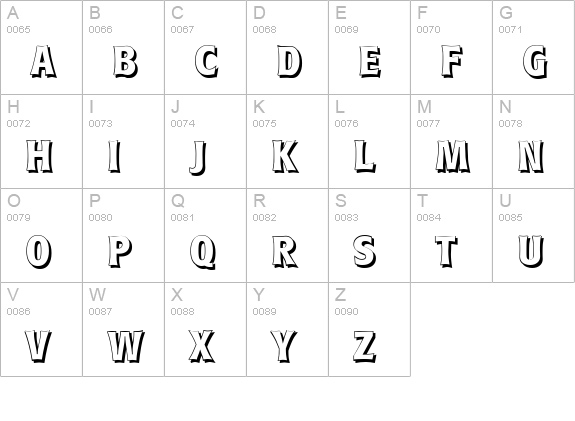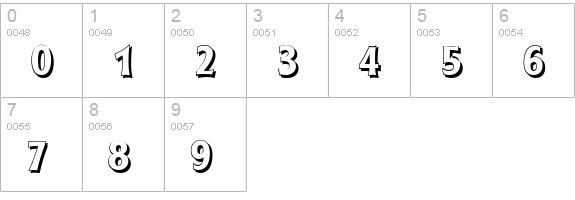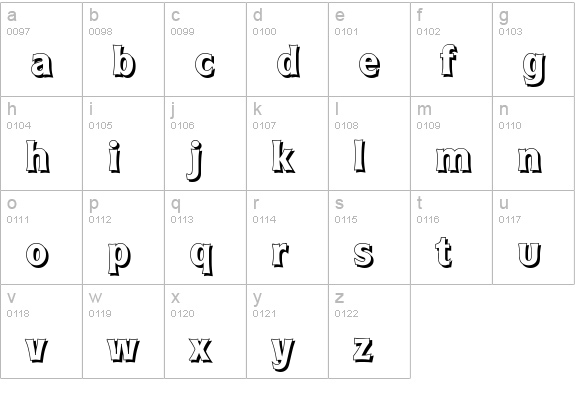
RoundestShadow-Bold is a strong, high-contrast variant in the RoundestShadow typeface family \xE2\x80\x94 well suited to headlines, attention-grabbing titles, and strong calls-to-action.
RoundestShadow-Bold font is a bold and striking typeface that is perfect for making a statement in your design projects. Its round and smooth edges give it a friendly and approachable feel, making it versatile for various applications such as logos, headlines, posters, and more. The bold weight of the font ensures that your text stands out and commands attention. The best part is that RoundestShadow-Bold font is available for free download at FontsMarket.com. This means you can easily access this eye-catching font and use it in your projects without any cost. Whether you're a professional designer or just looking to add some flair to your personal creations, RoundestShadow-Bold font is a fantastic choice that won't break the bank. Download it today and elevate your designs with this modern and stylish typeface.